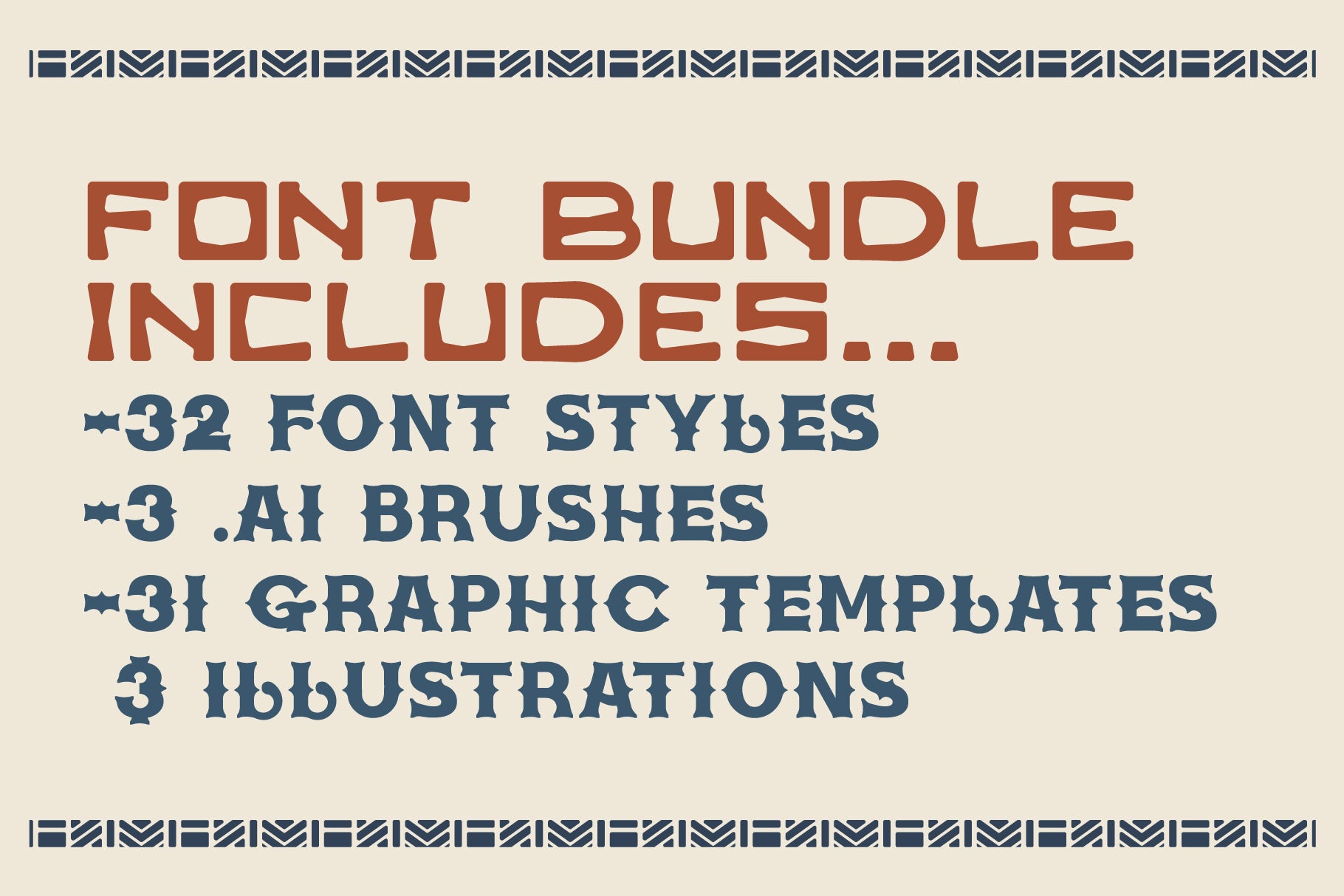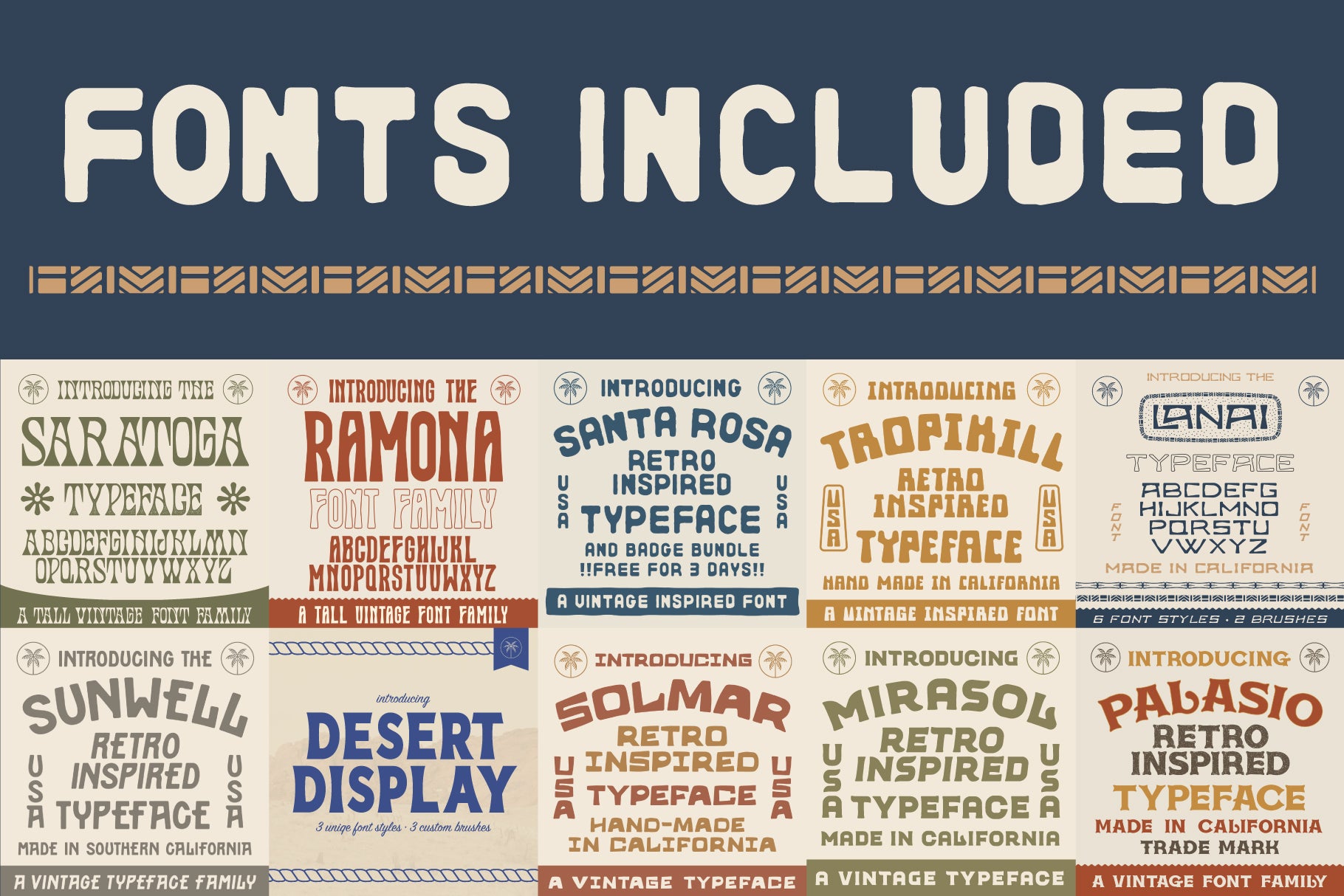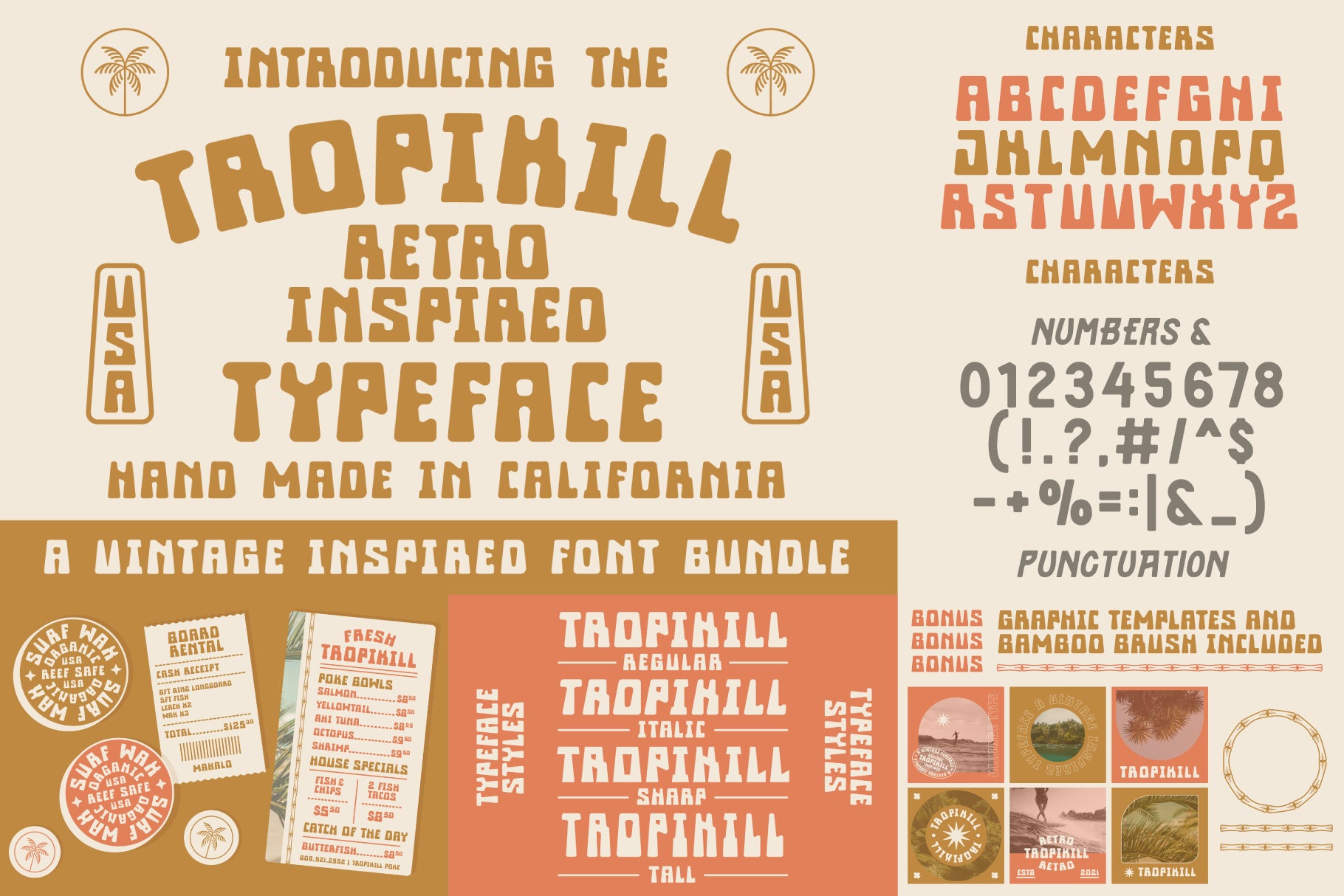
Introducing The Tropical Font Bundle by NienowBrand
Fonts included are:
This bundle includes the best selling tropical/ island fonts from the shop. Everything you need from fonts, brushes, illustrations, and badge templates are included in this bundle to create a great vintage & tropical design.